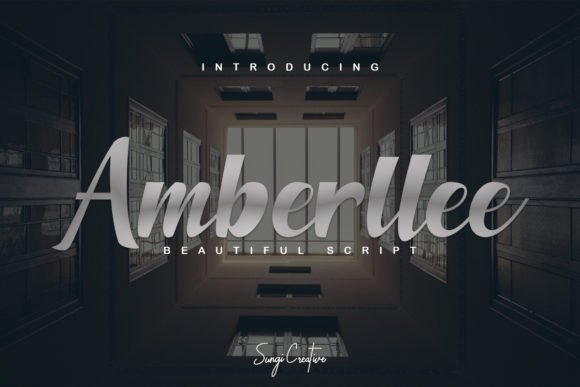
Introduction to Amberllee Font
Amberllee is a beautiful and elegant handwritten font.
It has sweet and well balanced characters and as a result, it matches a wide pool of designs Add it to your most creative ideas and notice how it makes them come alive.
Key Features of Amberllee Font
Why Choose Amberllee Font?
Amberllee Font offers exceptional quality and versatility, making it a valuable addition to your design toolkit. Whether you’re creating for personal projects or commercial use, Amberllee Font delivers professional results.